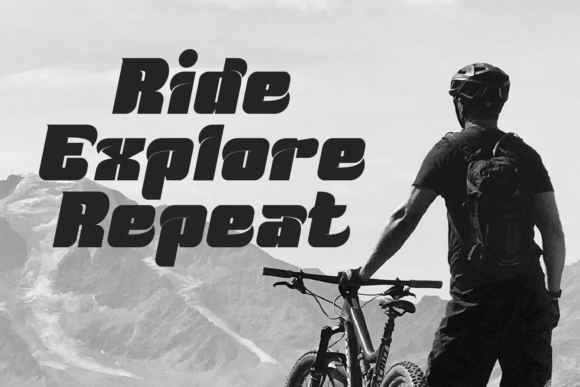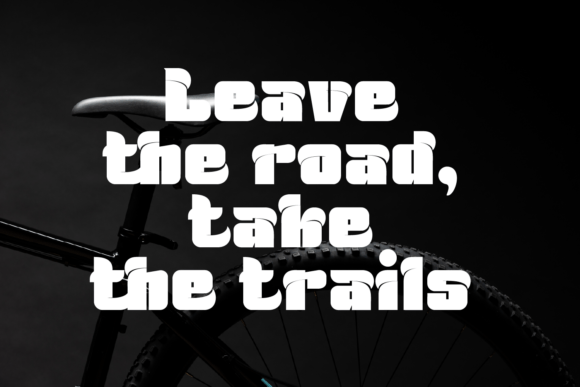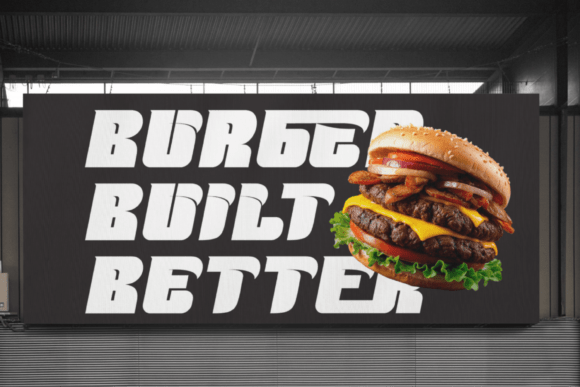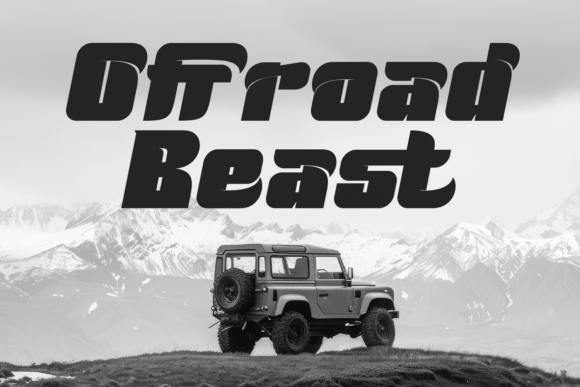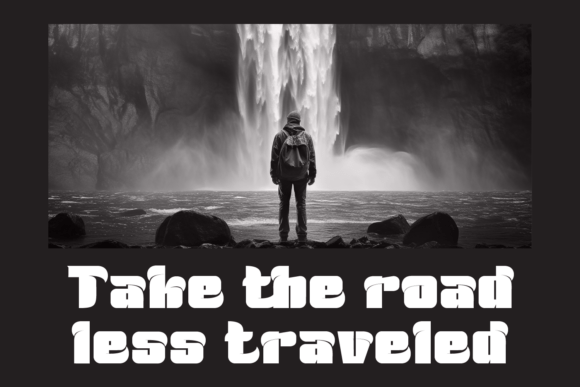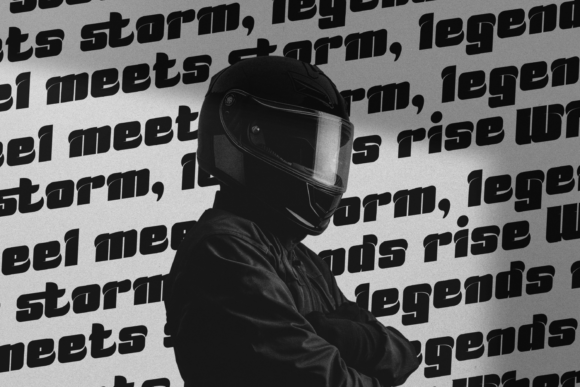
The Bold Statement Maker: Unleashing the Power of Aftcher Font
Have you ever been in the middle of a design project, and suddenly, you’re stuck on finding the perfect font? I recall a recent experience where I was working on a branding project for an extreme sports company. The client wanted a bold, daring look that would capture the essence of their high-octane activities. After hours of scouring through font libraries, I stumbled upon Aftcher Font, and it was love at first sight! 💥
With its progressive and audacious aesthetic, Aftcher Font is specifically engineered to command attention in high-octane fields such as extreme sports, automotive, and adventurous designs. This bold display typeface boasts rakish cuts and robust curves, embodying the epitome of masculinity, power, and velocity.
What I Love About Aftcher Font ✨
• ✅ Bold and attention-grabbing: Aftcher Font is perfect for making a statement in poster headlines, branding, and social media content.
• ✅ Versatile: This typeface can be used in various design projects, from sportswear labels to stickers and infographics.
• ✅ Modern and fearless: Aftcher Font adds a contemporary flair to any design, making it perfect for brands that want to appear daring and bold.
• ⚠️ Limited use cases: Aftcher Font is a display typeface, making it less suitable for body text or long-form content.
• ⚠️ May not be legible at small sizes: Due to its bold and condensed design, Aftcher Font may not be legible at small font sizes.
4. Experiment with OpenType features, such as glyphs and stylistic alternates, to add more personality to your text.
The Designer Inspiration Behind Aftcher Font
Aftcher Font was designed with the intention of creating a bold and daring typeface that would capture the essence of high-octane activities. The designer, inspired by the world of extreme sports and automotive culture, aimed to create a font that would embody the spirit of adventure and fearlessness.
Q: What is Aftcher Font best used for?
A: Aftcher Font is best used for bold and attention-grabbing headlines, titles, and branding in high-octane fields such as extreme sports, automotive, and adventurous designs.
Q: Is Aftcher Font suitable for body text?
A: No, Aftcher Font is a display typeface and is not suitable for body text or long-form content.
Q: Is Aftcher Font available in different weights or styles?
A: Aftcher Font is a single-weight font, but it features OpenType features, such as glyphs and stylistic alternates, to add more personality to your text.